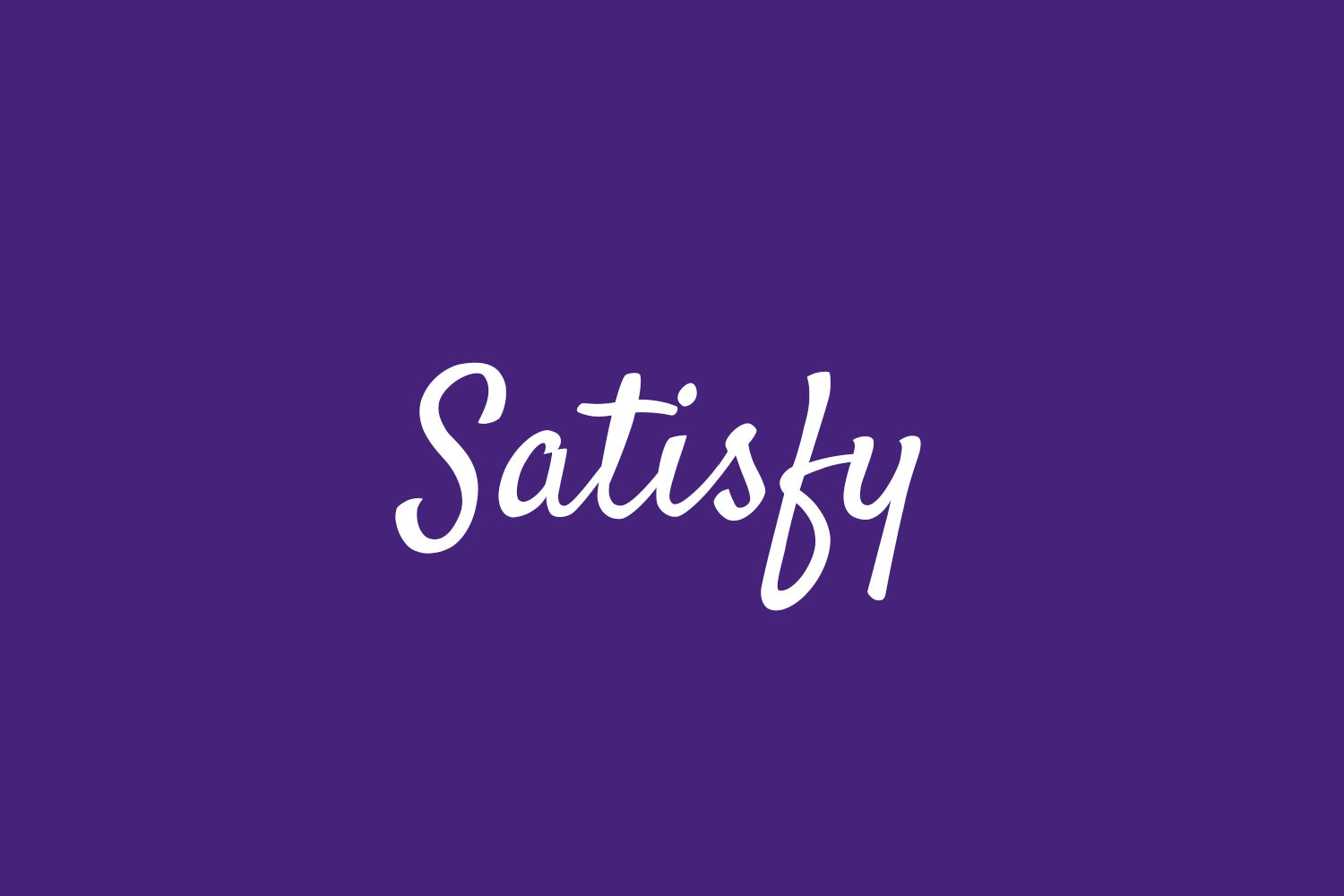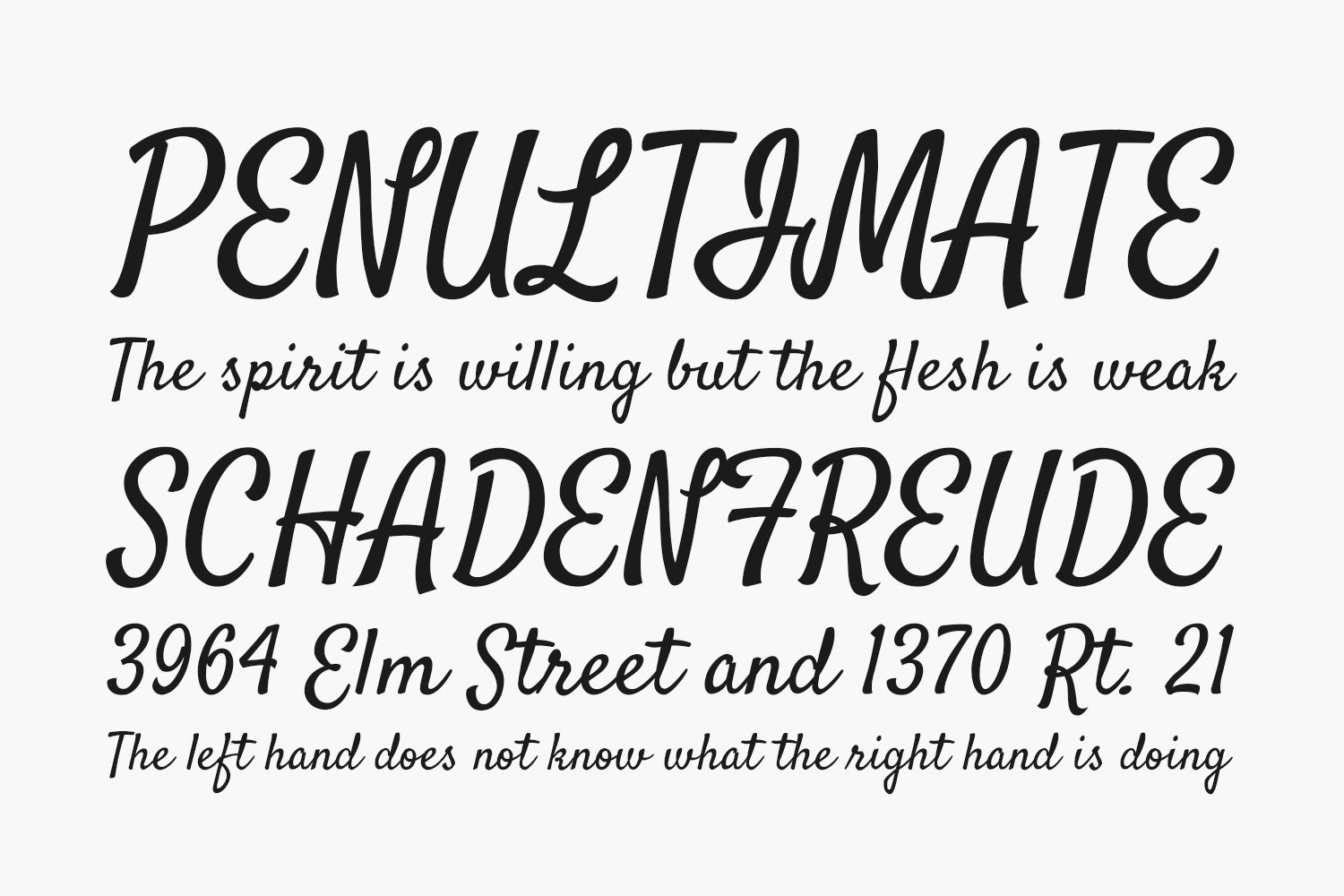
Looking for a brush script with a little pizazz? Satisfy Free Font ia a new Sideshow typeface will fill the bill! Satisfy gives you the look of a timeless classic with a unique modern flair. Download this font by designer Squid and you’ll be satisfied.